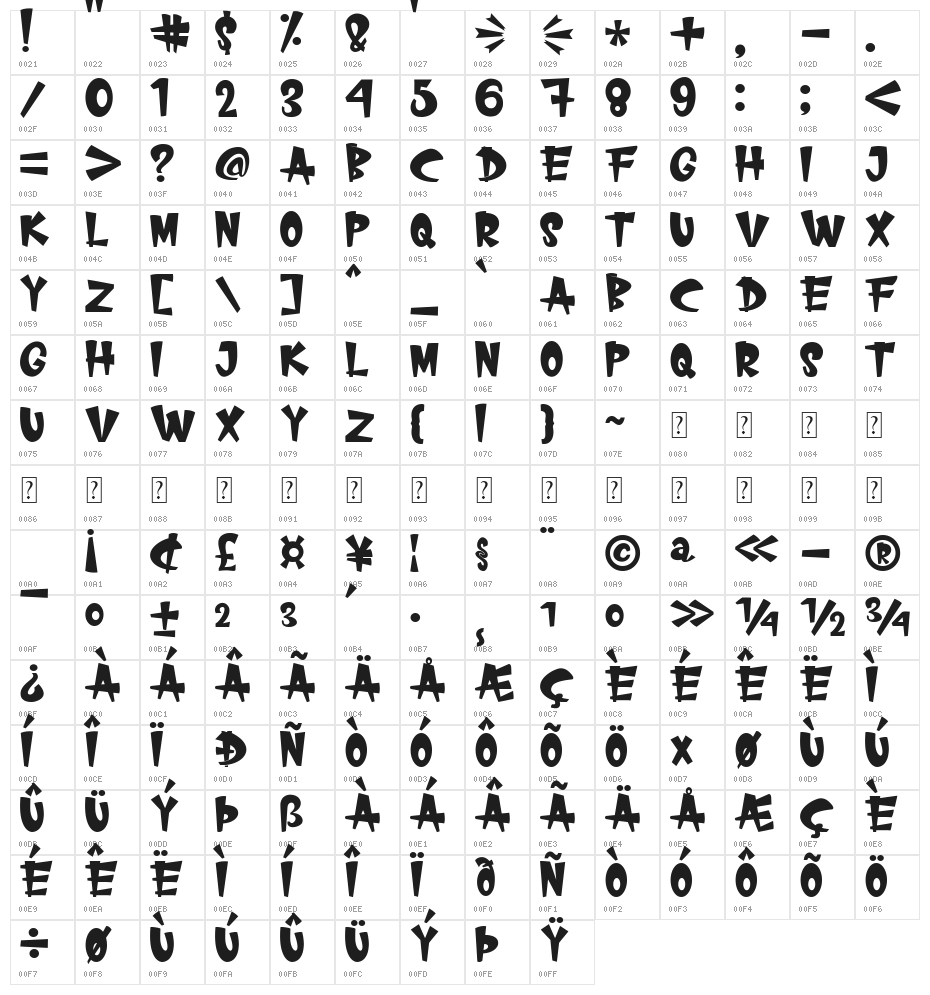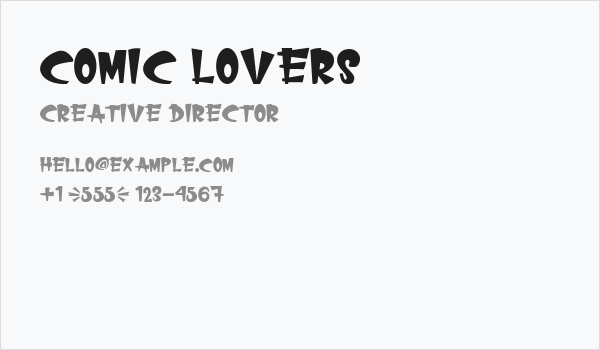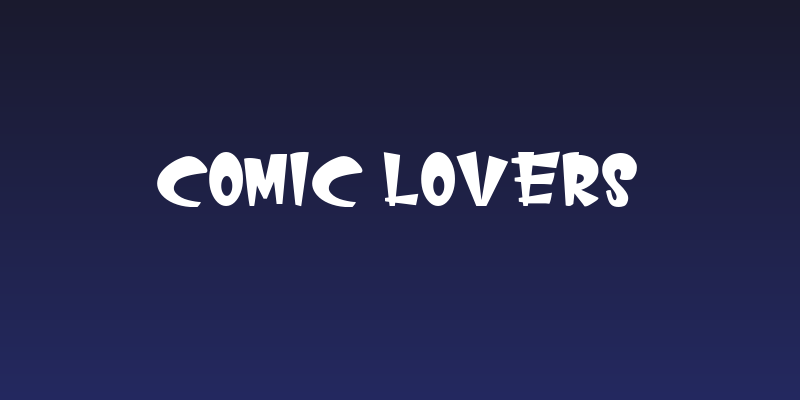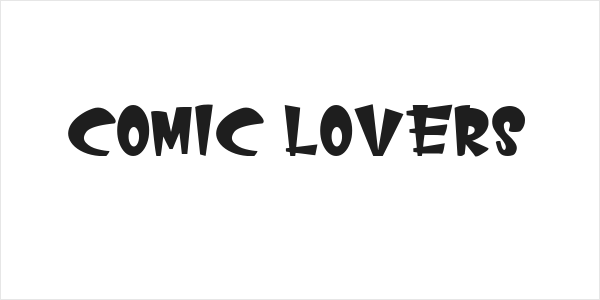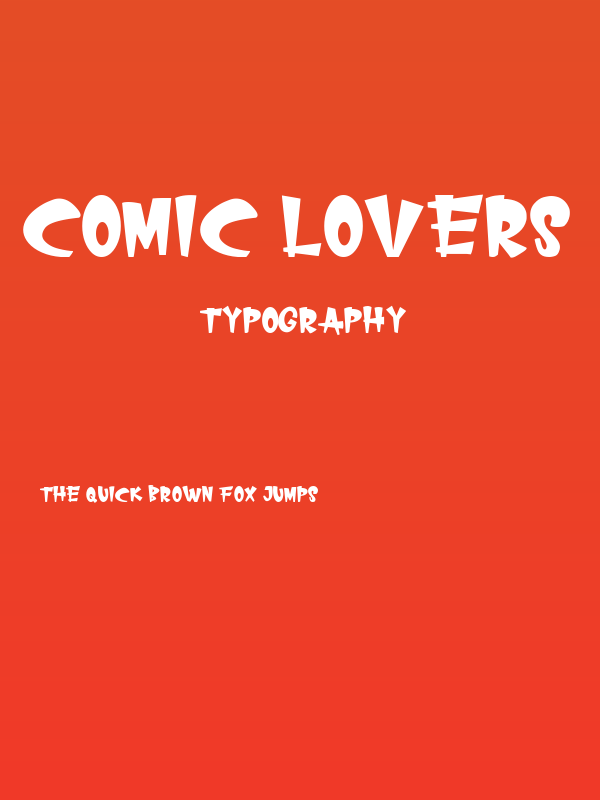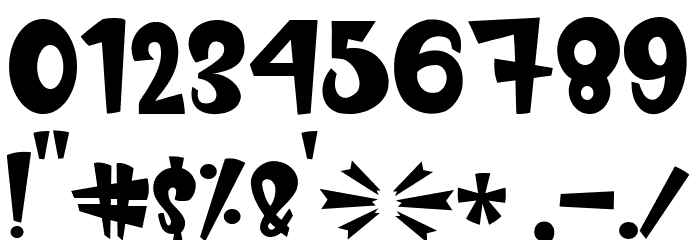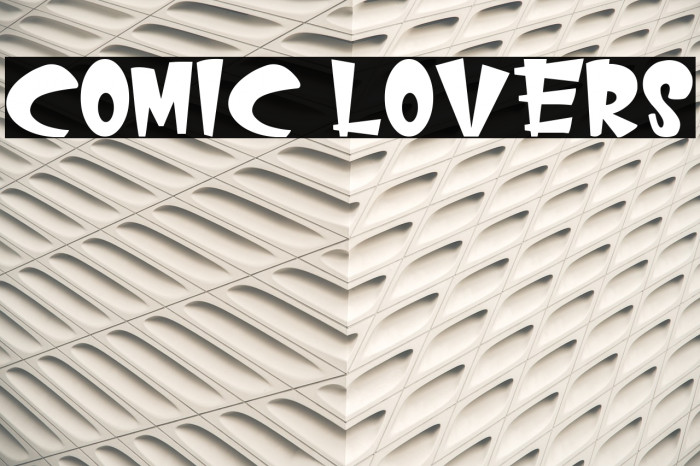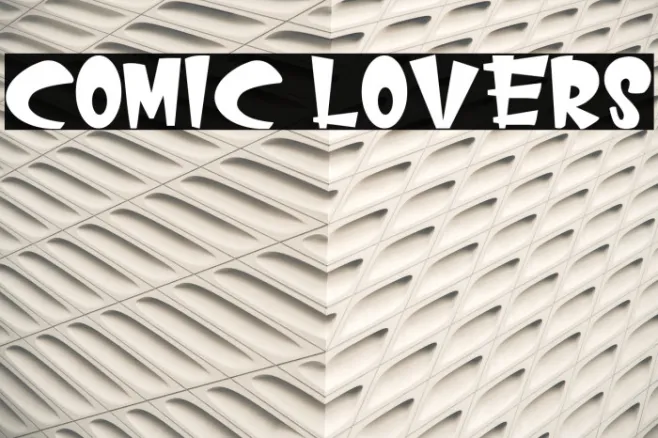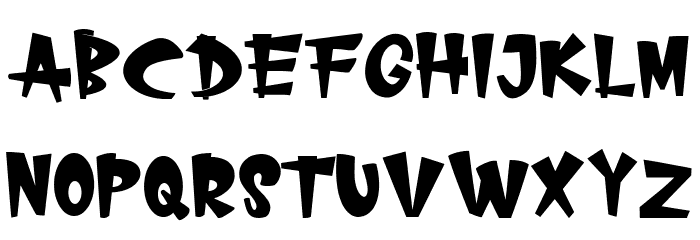
COMIC LOVERS Font
COMIC LOVERS Description
This playful and bold font is characterized by its exaggerated, comic-style letterforms that bring a sense of fun and energy. The uppercase and lowercase letters are designed with irregular, dynamic strokes that give a hand-drawn appearance. The numbers and special characters maintain this lively aesthetic, making the font ideal for projects that require a whimsical touch. The thick strokes and uneven edges contribute to its informal and approachable style, perfect for engaging a younger audience or adding a humorous element to designs.
| Overall Style | Playful, Comic |
| Proposed Projects | Ideal for comic books, children's books, playful posters, and informal branding. |